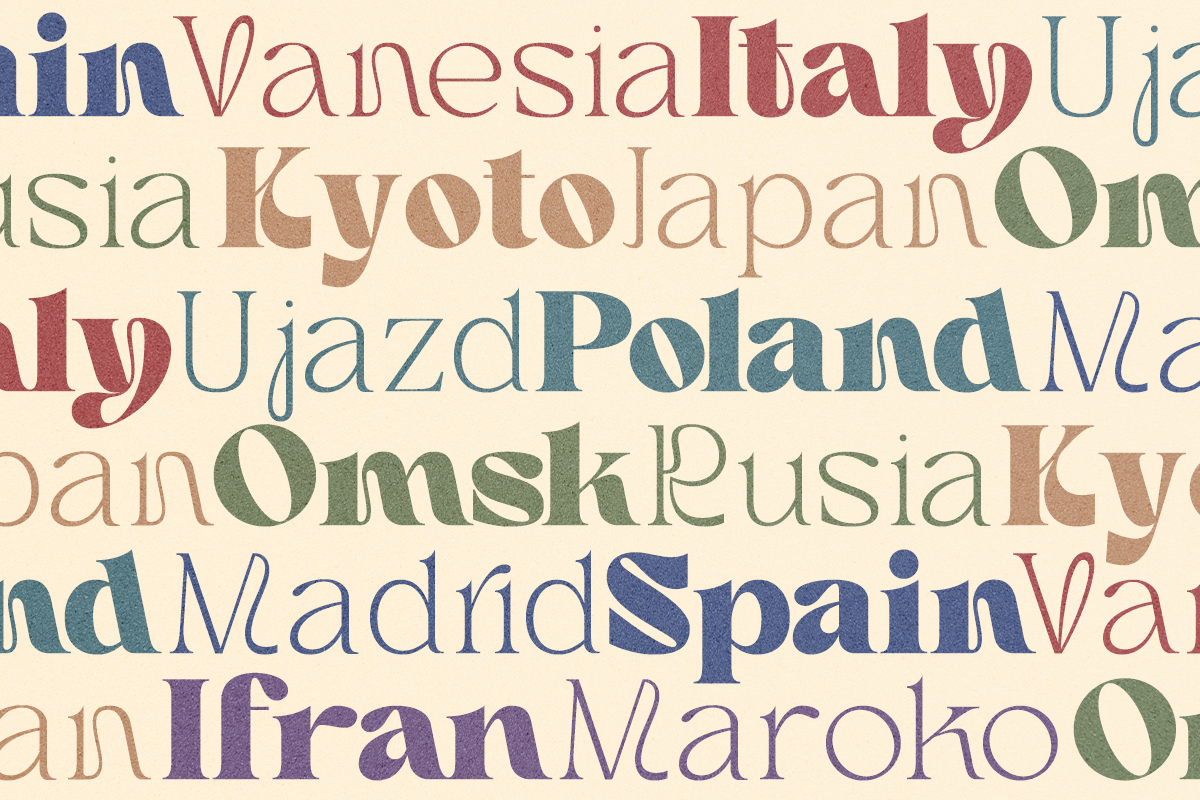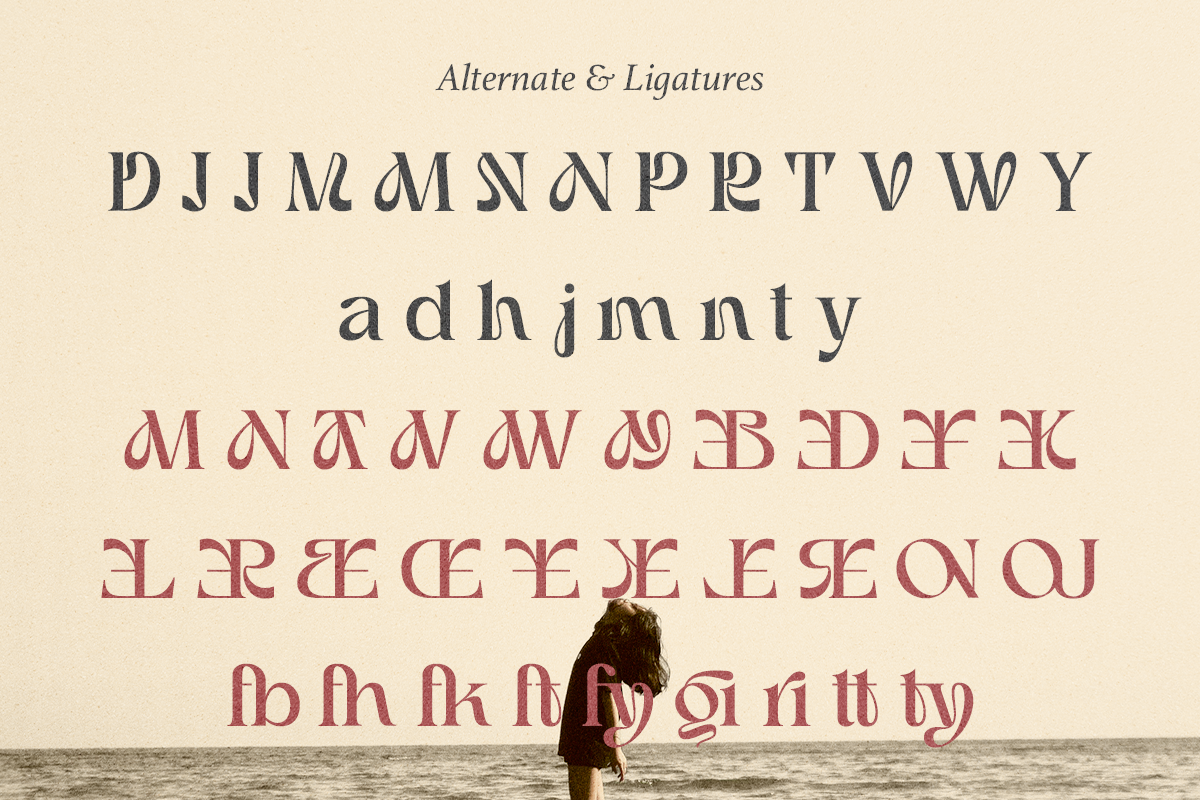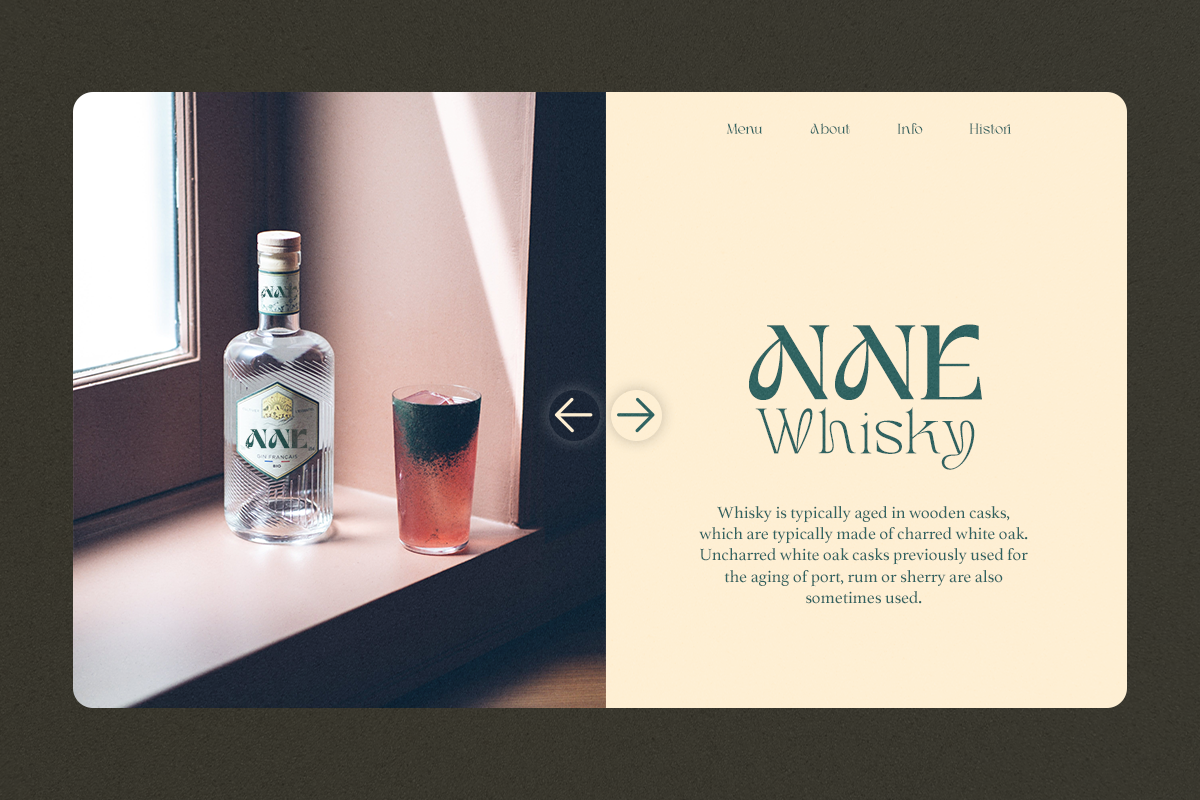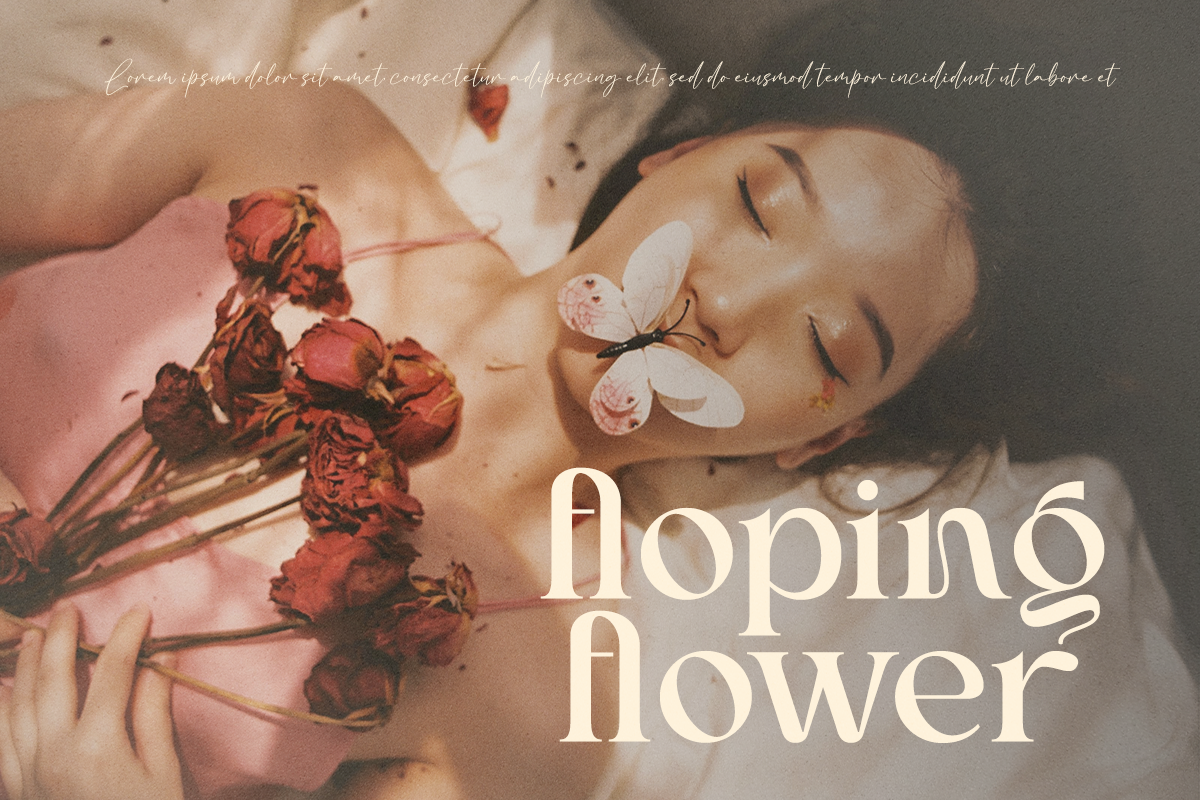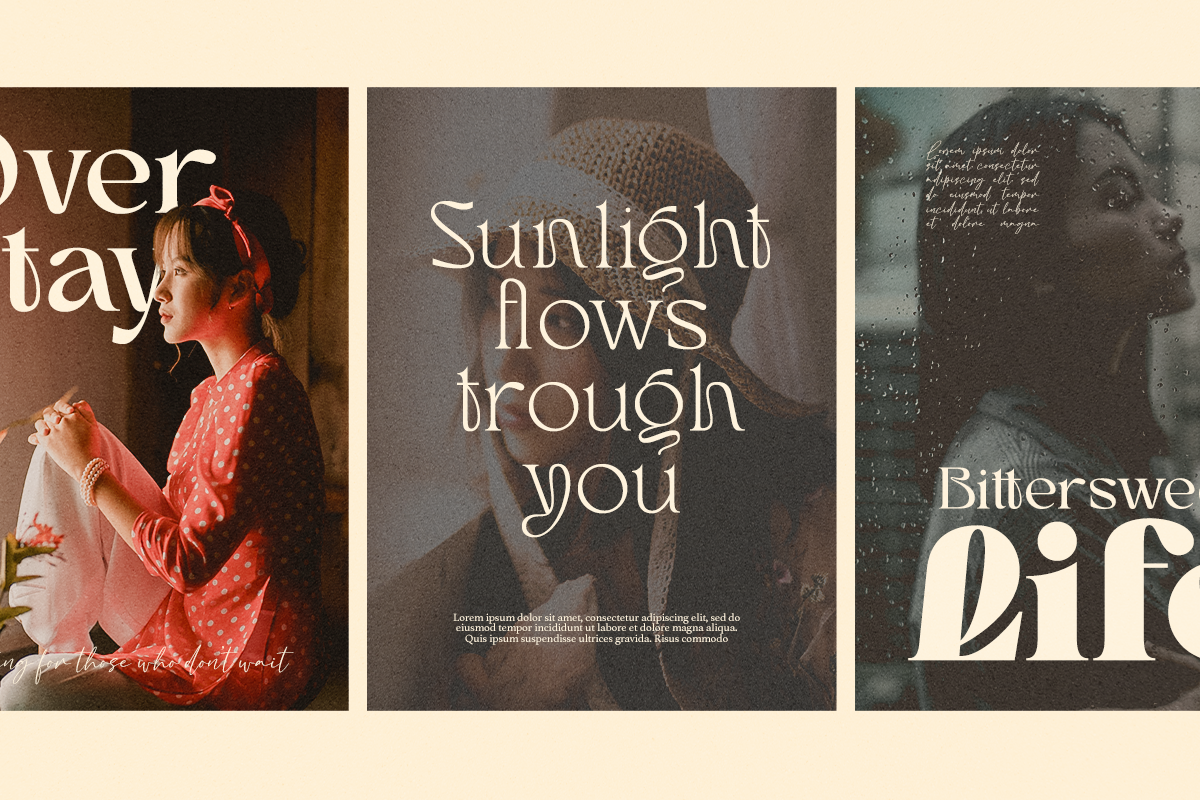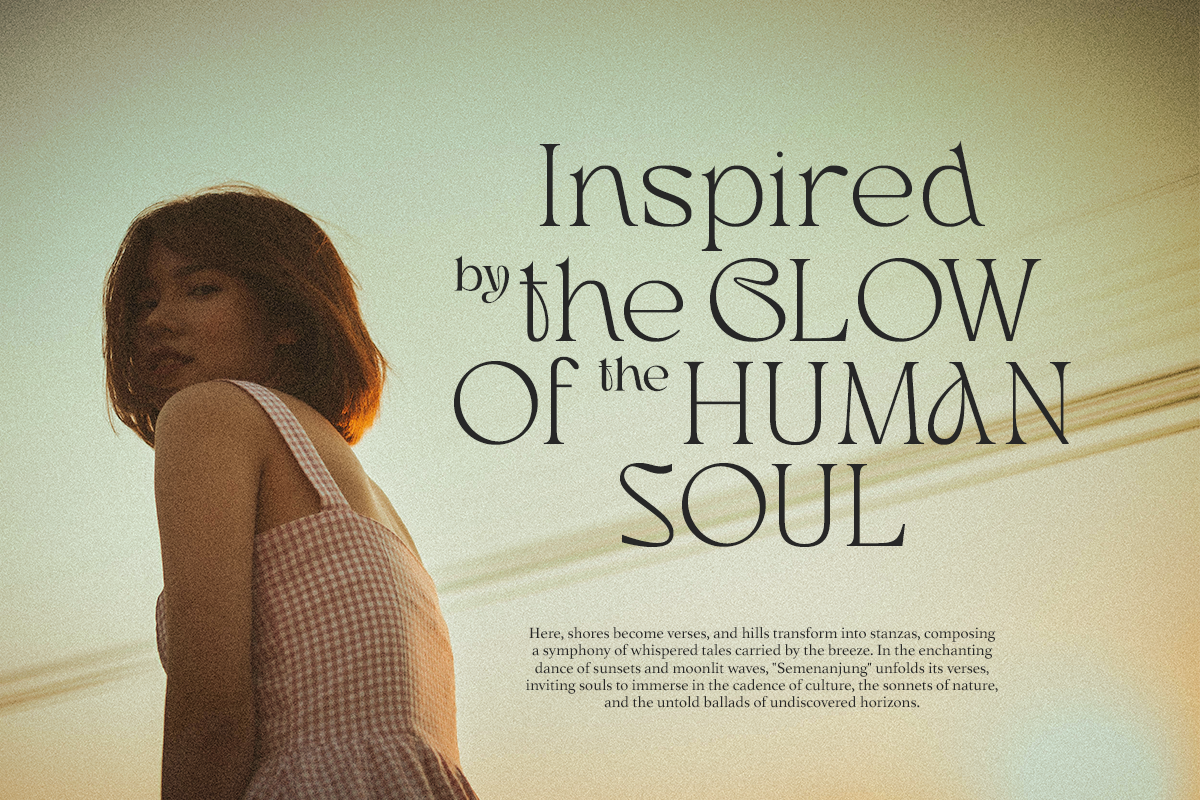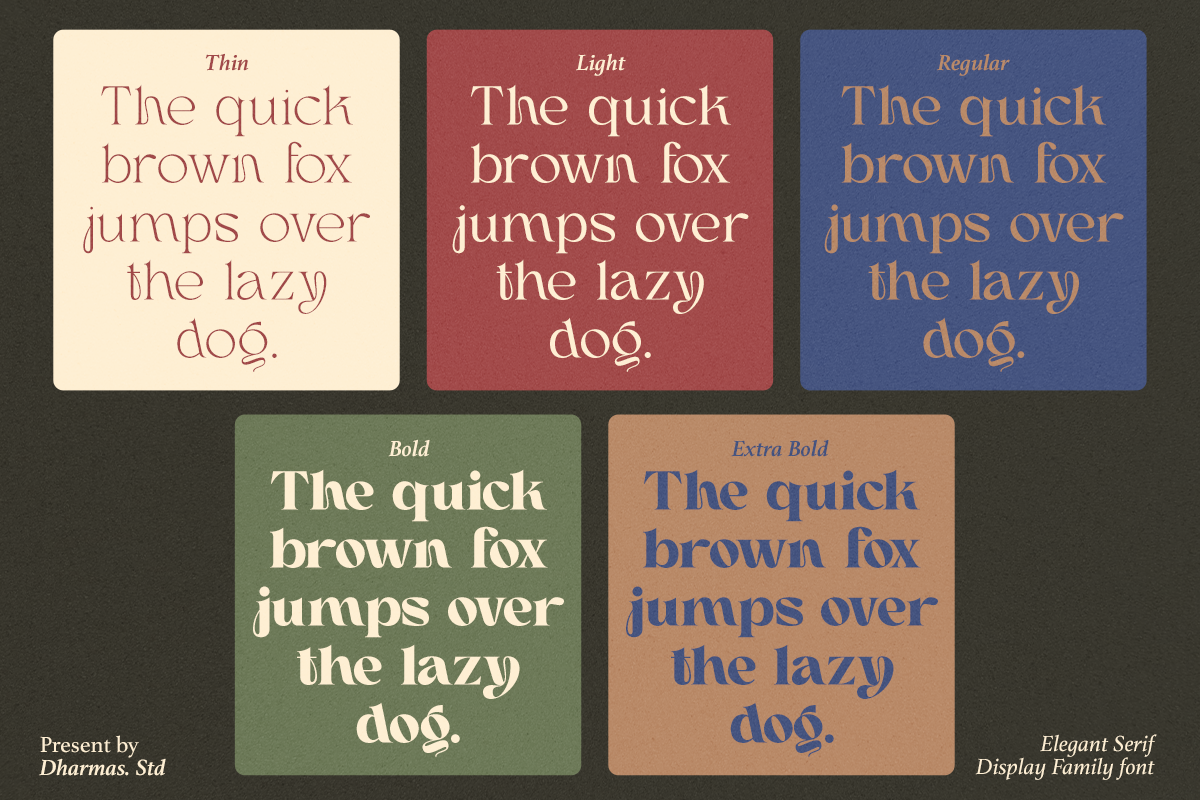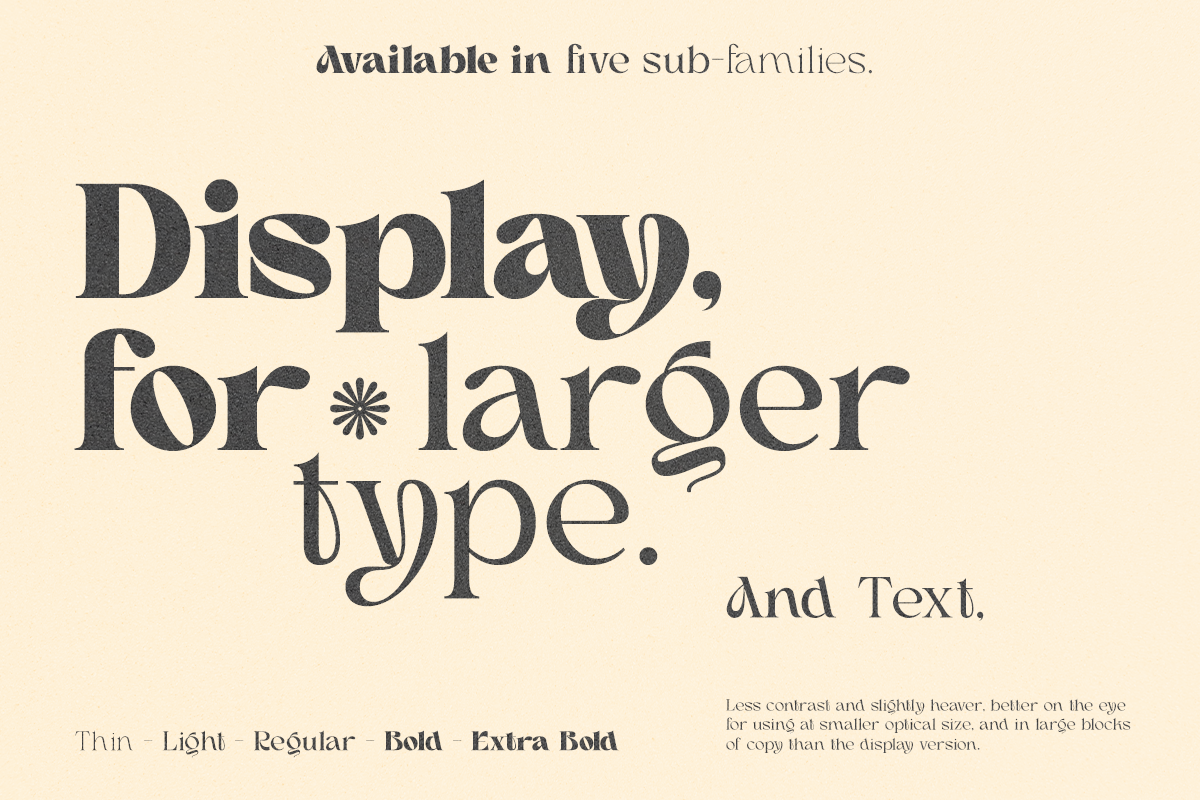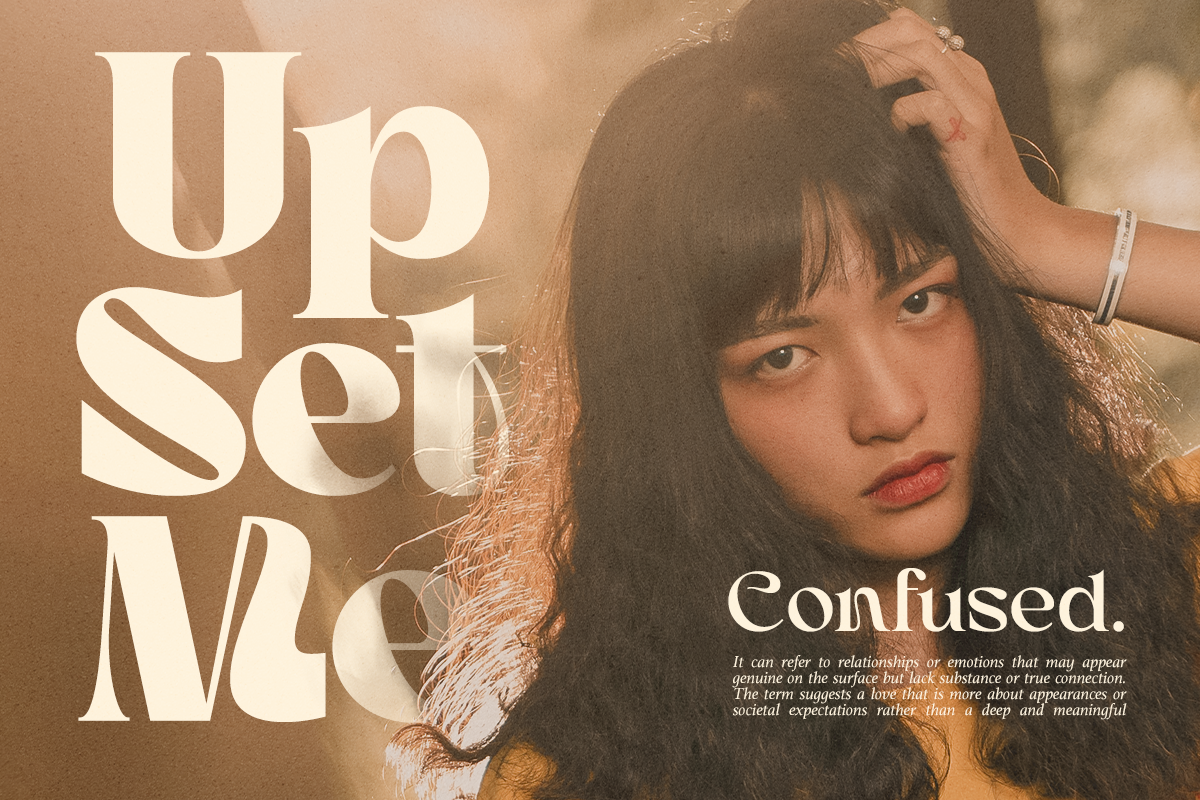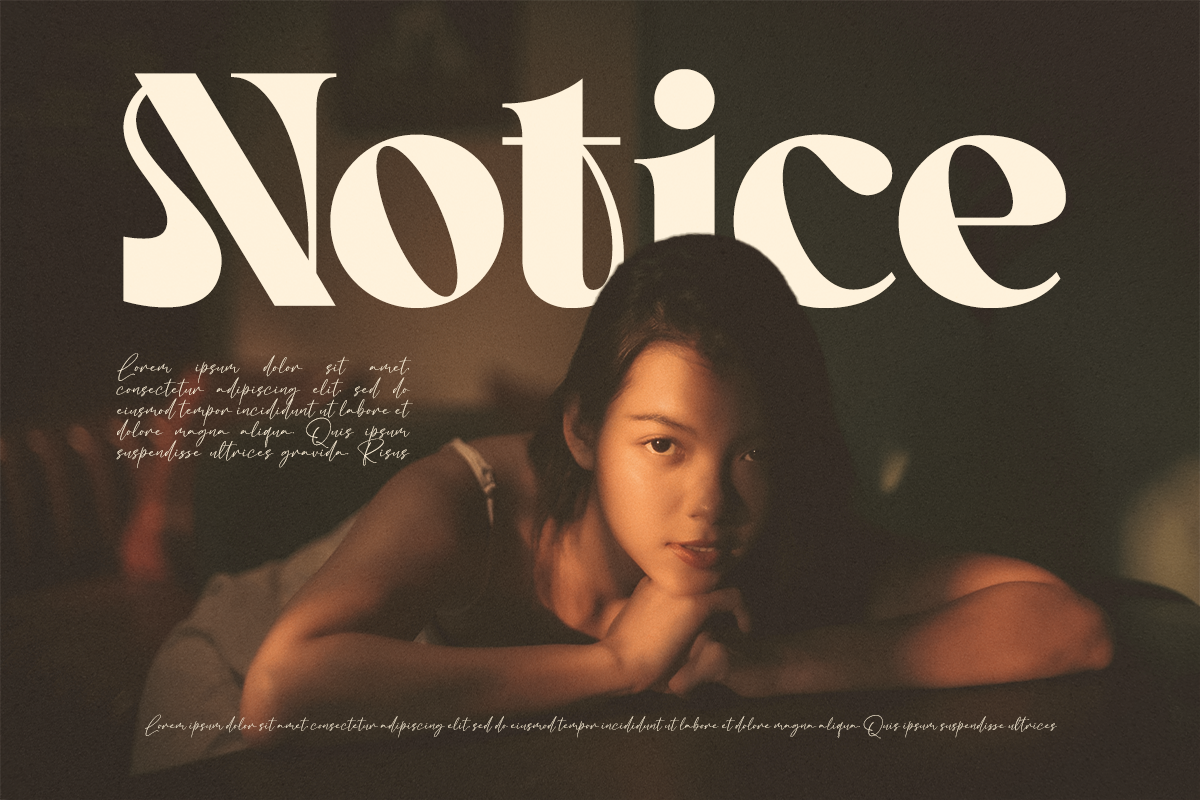
Anthy - 5 Display Family
Anthy is a serif font family designed for logos, brand identity, packaging, editorial layouts, websites, mobile interfaces, and marketing materials. With 5 font weights, 64 stylistic alternates and ligatures, multilingual support, and PUA encoding, Anthy provides flexible typography for creating cohesive branding, product packaging, magazine layouts, website headers, app interfaces, invitations, book covers, and digital content.
Anthy Font Features:
5 Weights: Thin, Light, Regular, Bold, and Extra Bold
64+ Unique Special Alternates and Ligatures
Letters, numbers, symbols, punctuation, special alternates
PUA Encoded Characters, fully accessible without additional design software
Multilingual Characters available for:
Afrikaans, Albanian, Asu, Basque, Bemba, Bena, Breton, Chiga, Cornish, Dutch, English, Estonian, Filipino, Finnish, Friulian, Galician, German, Gusii, Indonesian, Irish, Italian, Kabuverdianu, Kalenjin, Kinyarwanda, Luo, Luxembourgish, Luyia, Machame, Makhuwa-Meetto, Makonde, Malagasy, Manx, Morisyen, North Ndebele, Nyankole, Oromo, Portuguese, Quechua, Romansh, Rombo, Rundi, Rwa, Samburu, Sango, Sangu, Scottish Gaelic, Sena, Shambala, Shona, Soga, Somali, Spanish, Swahili, Swedish, Swiss.